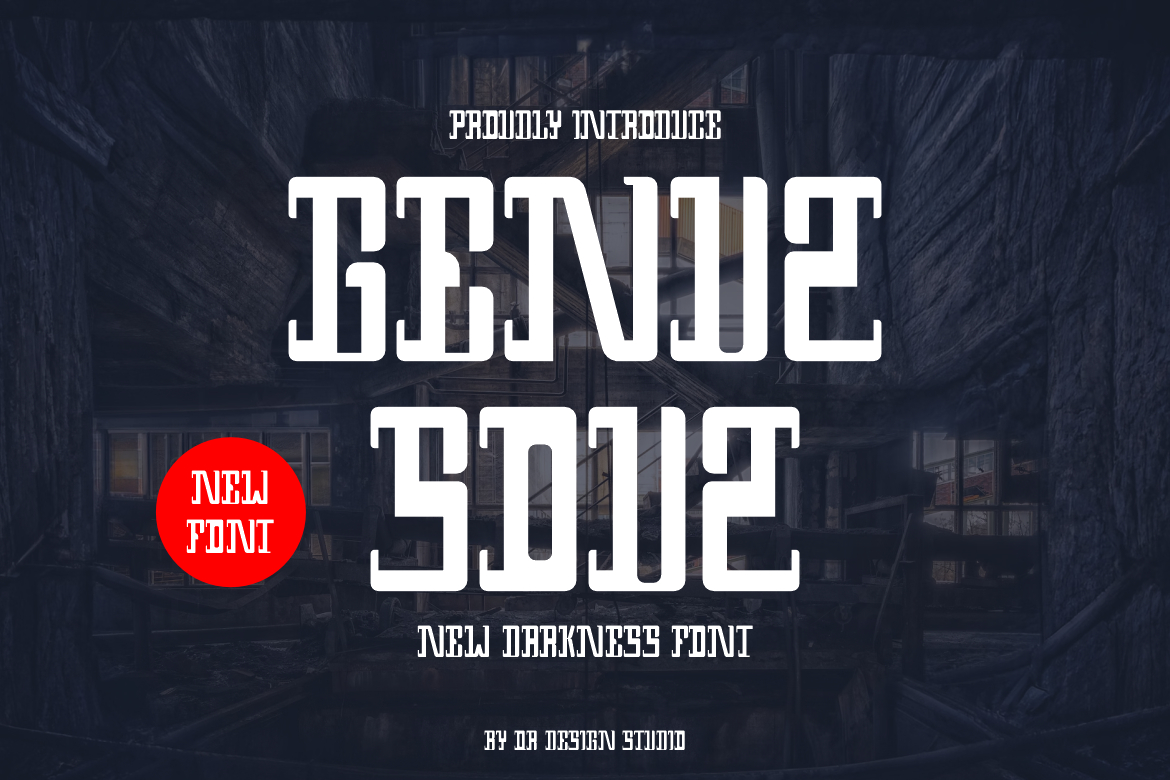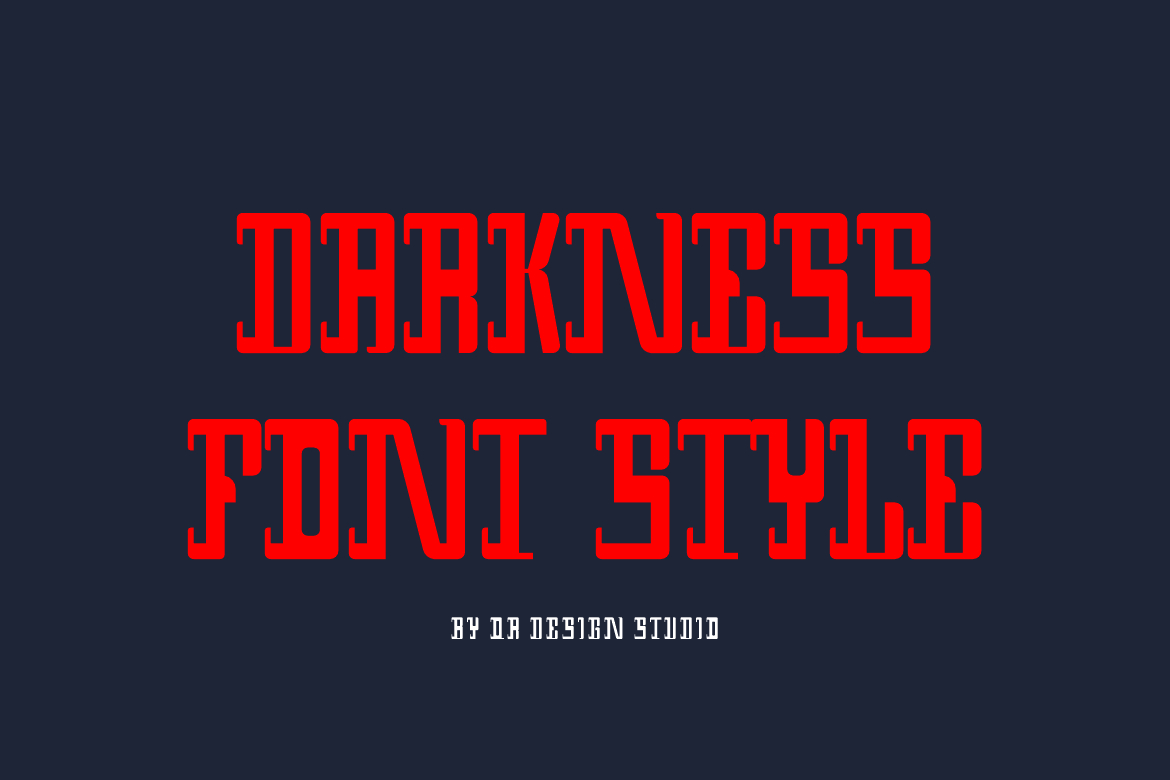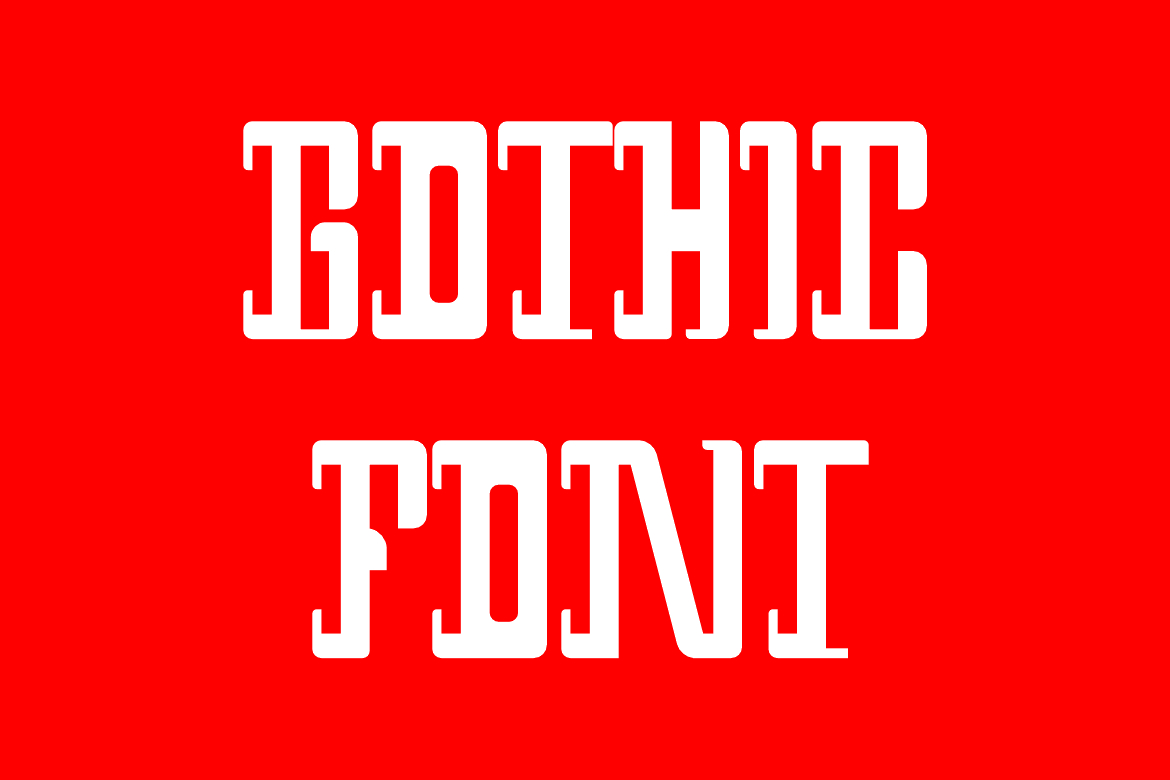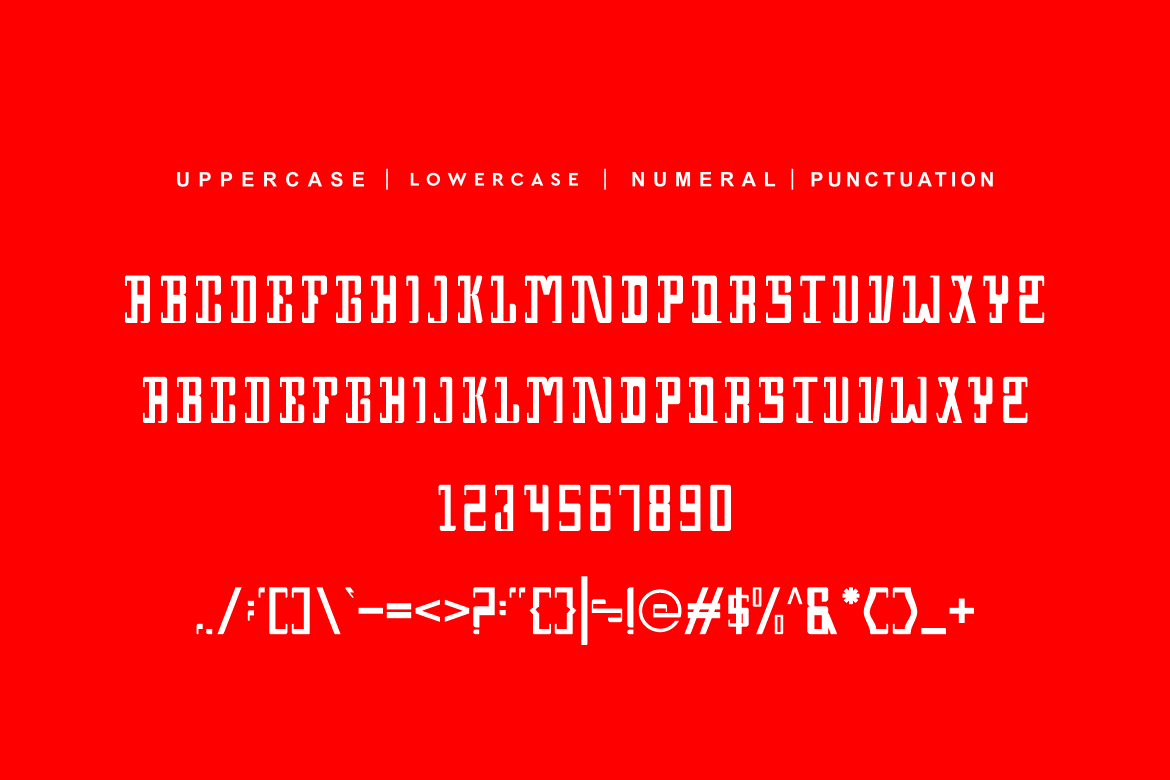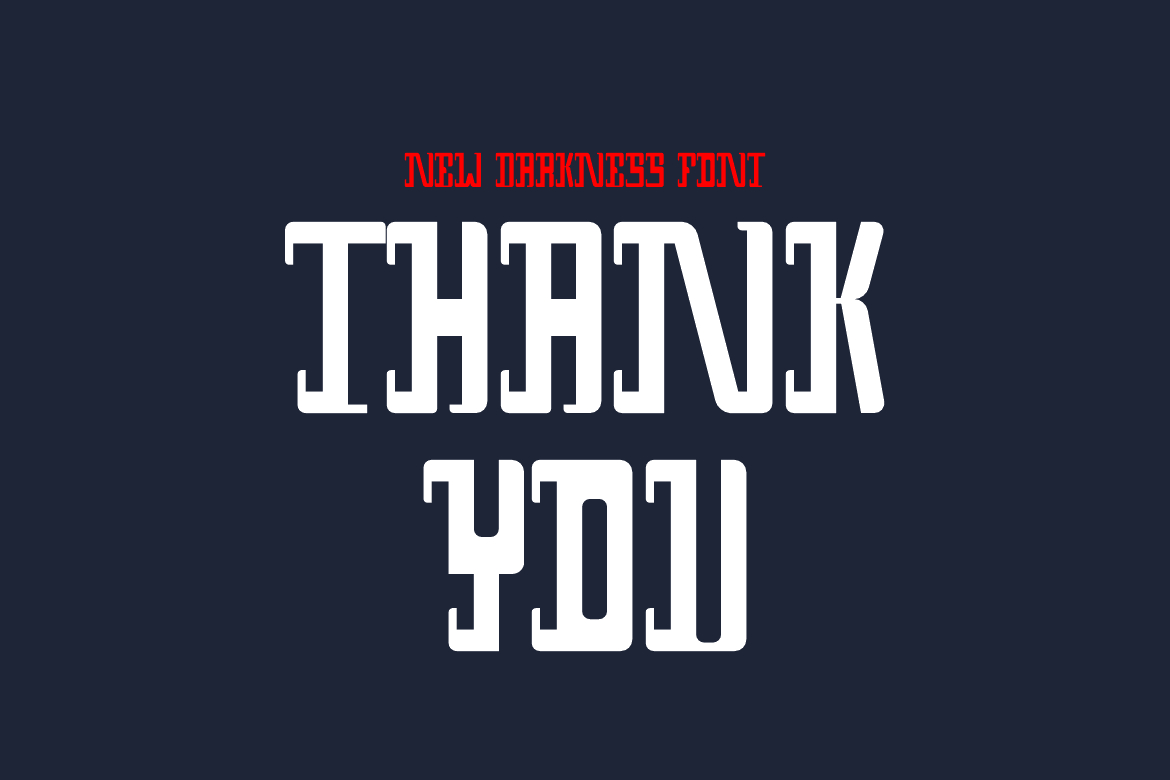
Genuz Souz Font
About Genuz Souz Font
Genuz Souz  is a bold and thick lettered blackletter font. Add it confidently to your projects, and you will love the results.